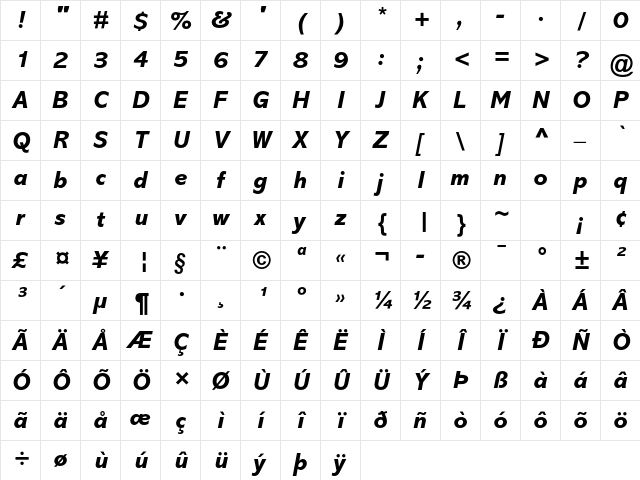
Abadi MT Std Extra Bold It
Style: Extra Bold It
Foundry: Agfa Monotype Corporation
Design Context for Abadi MT Std
Abadi MT Std is a composed and adaptable typeface that performs quietly and consistently across a wide range of design contexts. Its bold stroke weight gives it real presence on the page.